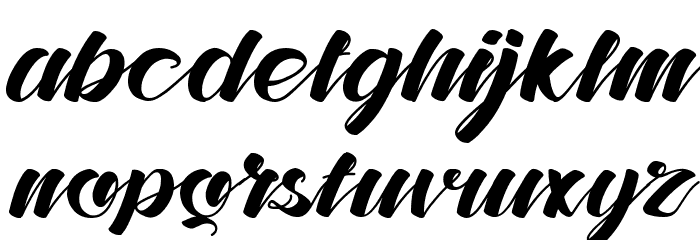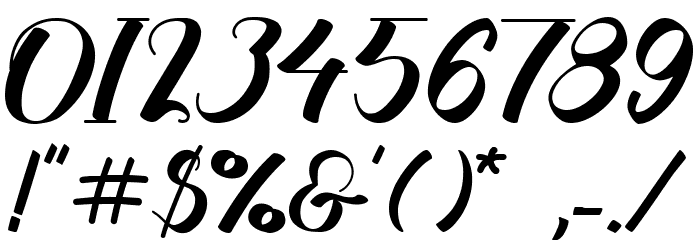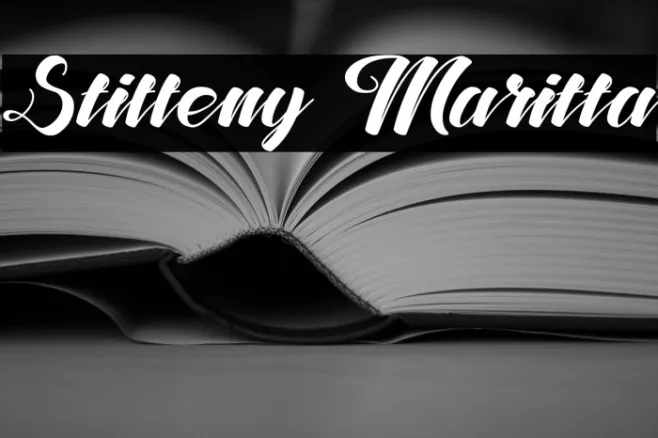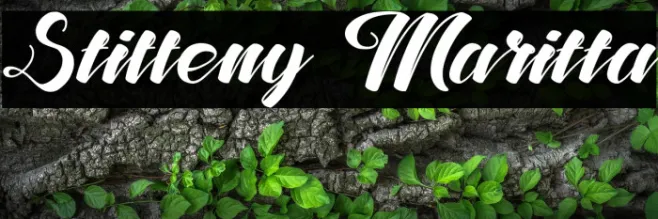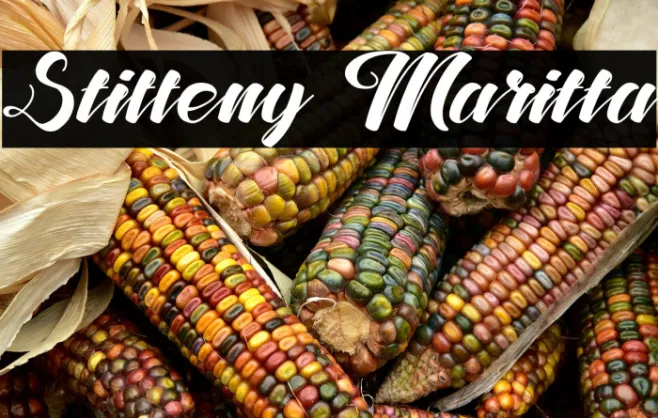
Stiffeny Maritta Font
This font features an elegant script style with a flowing, cursive design. The uppercase letters are adorned with decorative swashes, adding a touch of sophistication and flair. The lowercase letters maintain a smooth, connected appearance, enhancing readability while retaining an artistic feel. The numerals are bold and slightly italicized, complementing the overall style. Special characters are designed with similar elegance, ensuring consistency throughout the typeface. The font's bold strokes and high contrast make it stand out, perfect for projects requiring a touch of elegance and creativity.
An elegant, high-contrast script font with decorative swashes and bold strokes.
- Proposed Projects: Ideal for wedding invitations, luxury branding, elegant packaging, and artistic posters.
- Use Case: Logos, Headlines, Invitations